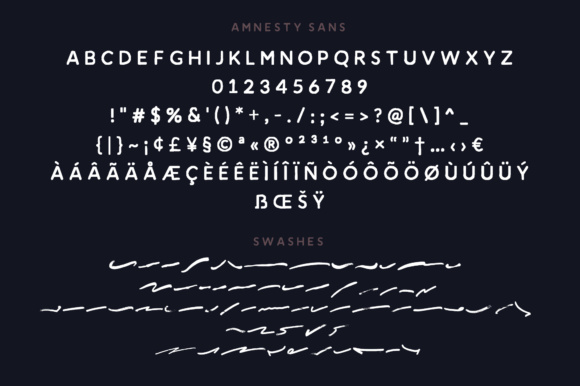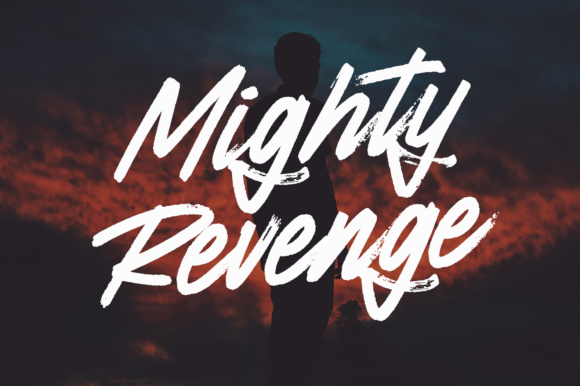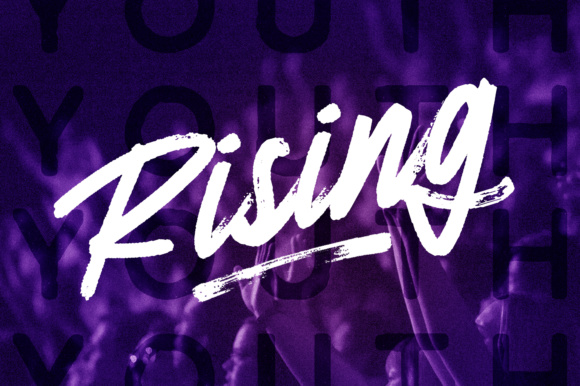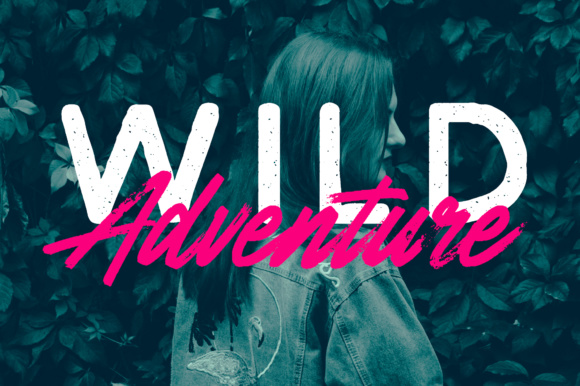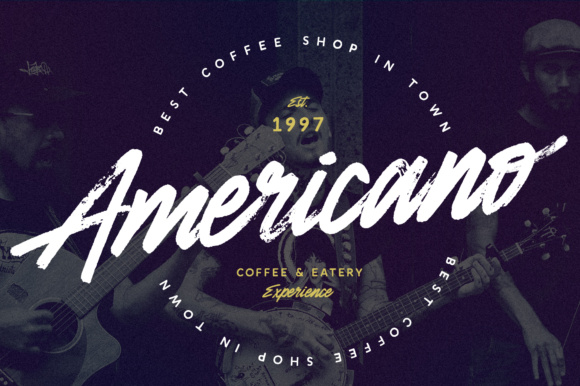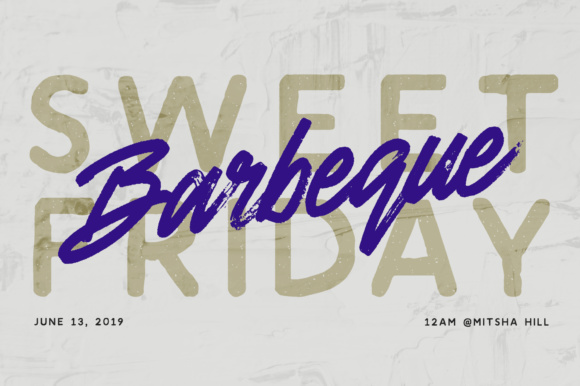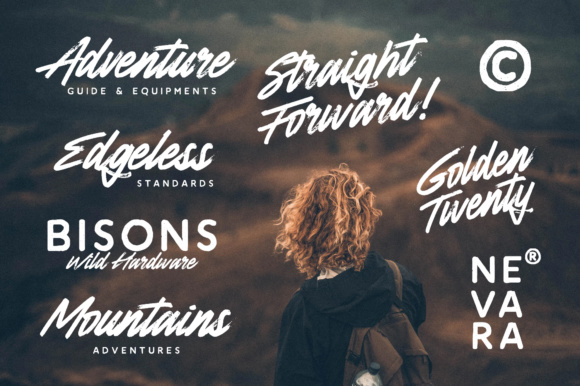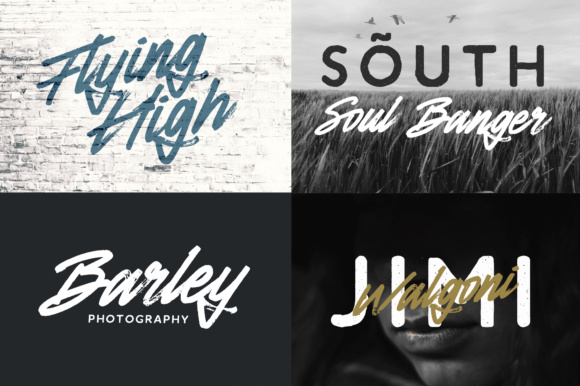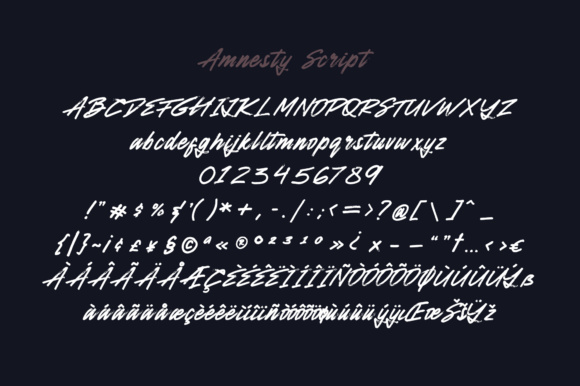
Amnesty Font
About Amnesty Font
The Amnesty font duo is a fun family that consists out of a rustic hand-written font. It’s expressive, shows a lot of passion and spirit. It has dynamic modern looks, and can be used for a large range of different types of projects.
The font is combined with the Amnesty Sans font. The sans comes in 2 variations: Regular & Stamp.